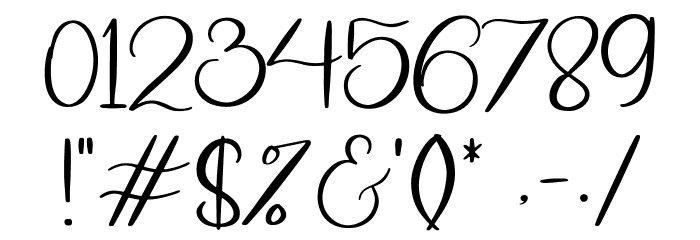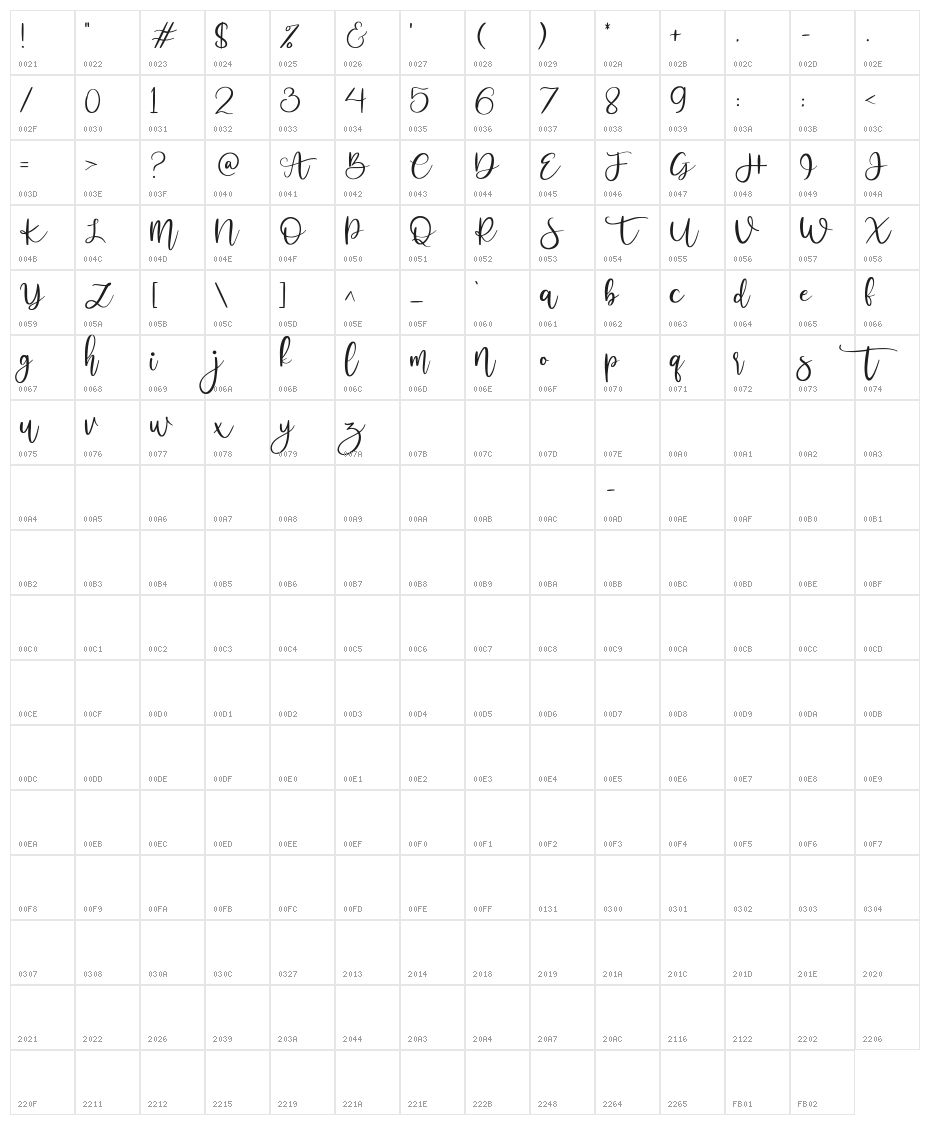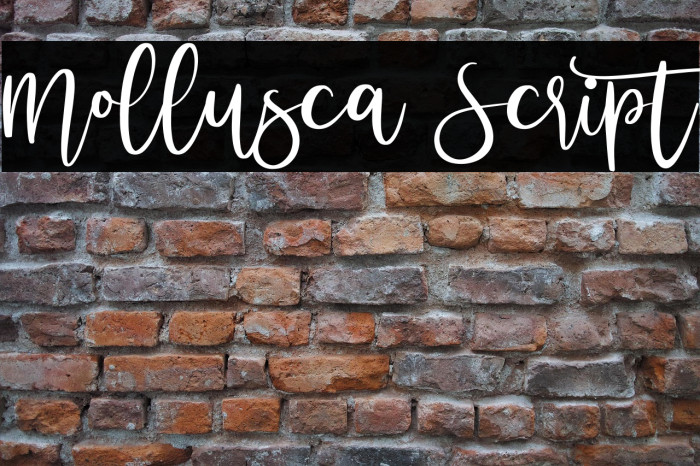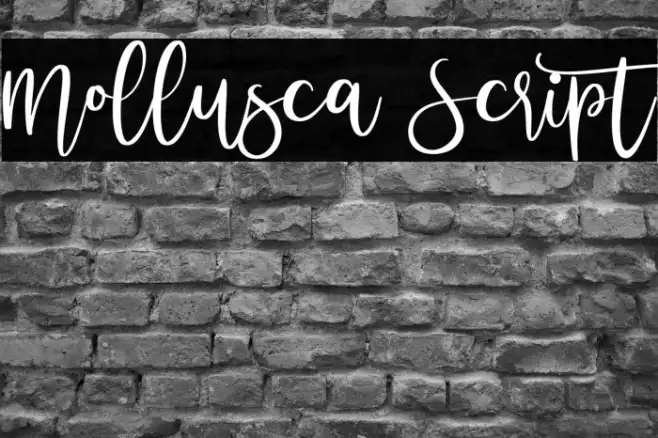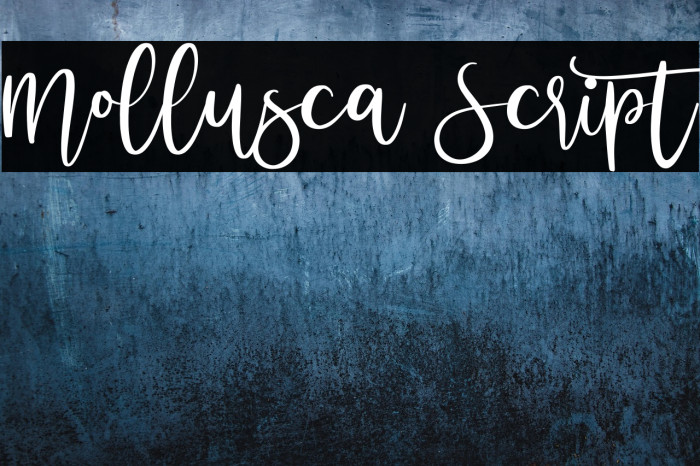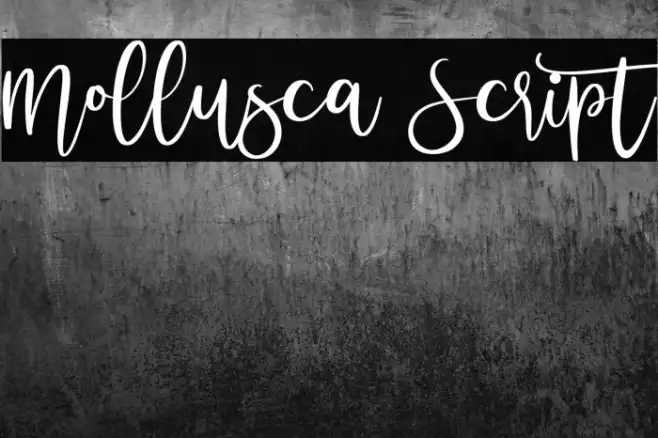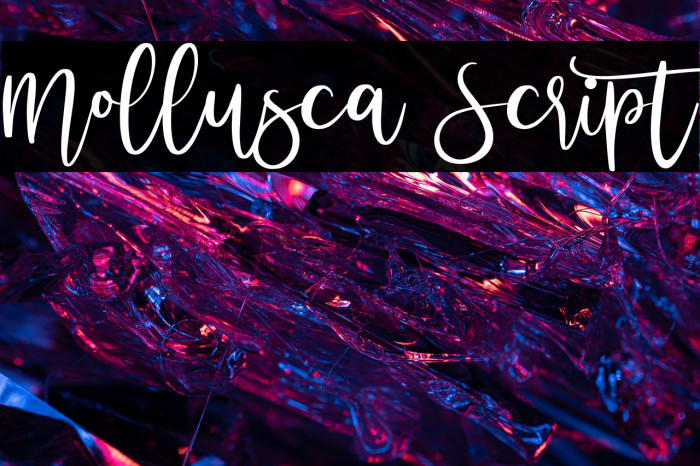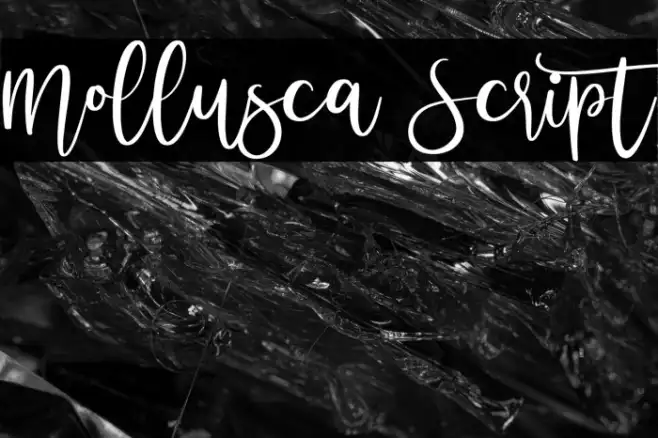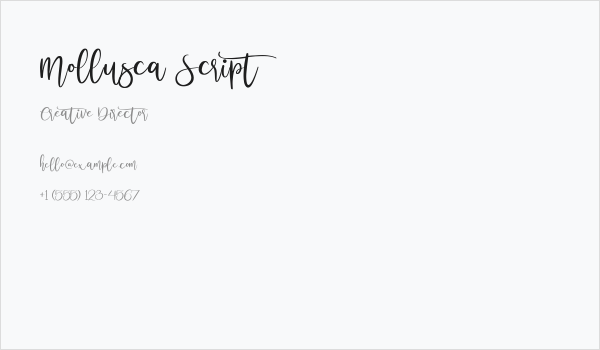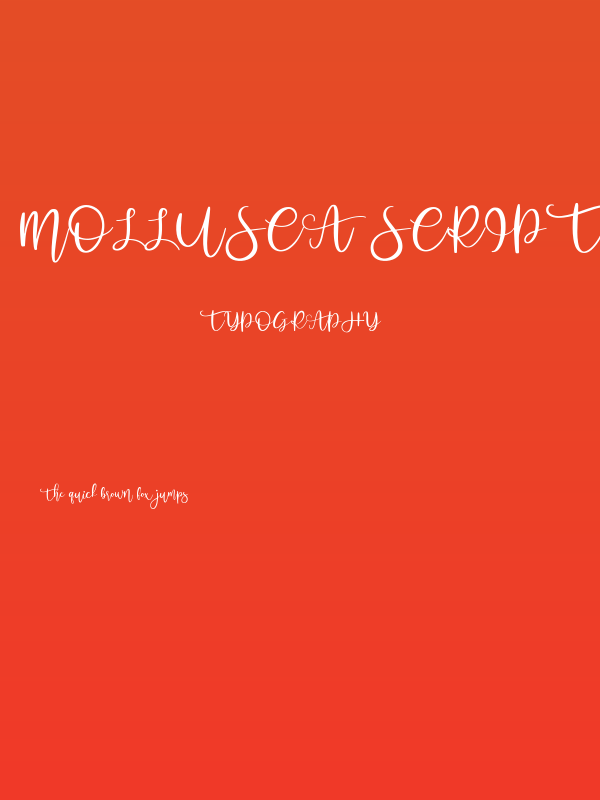
Mollusca Script Font
Mollusca Script Description
This elegant script font features flowing, interconnected letters with a handwritten style that exudes sophistication and charm. The uppercase letters are gracefully looped and slightly more structured, while the lowercase letters maintain a fluid, cursive appearance. The numerals and special characters complement the overall aesthetic with their consistent stroke weight and playful curves. The font's design is characterized by its smooth, continuous lines and subtle variations in thickness, adding a dynamic and lively feel. Ideal for projects that require a personal touch, this font is perfect for invitations, greeting cards, and branding materials that aim to convey elegance and creativity.
| Use Case | Invitations, Greeting cards, Branding |
| Proposed Projects | Ideal for wedding invitations, greeting cards, branding, and creative projects requiring a personal touch. |